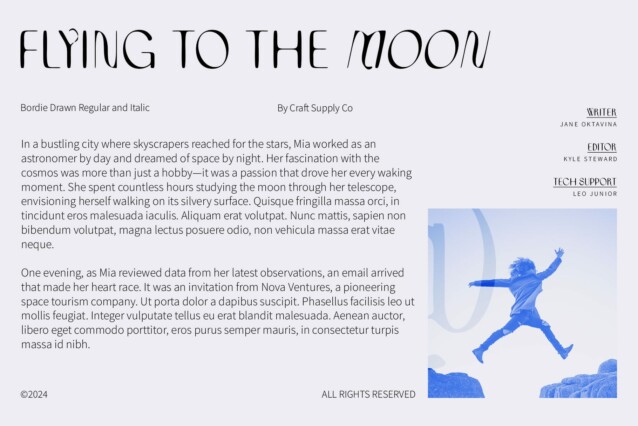
Bordie Drawn Font
Bordie Drawn Font is a modern sans-serif font characterized by its slender and graceful letterforms, exuding an air of elegance and refinement. The font’s clean lines and subtle curves create a sophisticated appearance that is both timeless and contemporary, making it a versatile choice for a wide range of design projects.